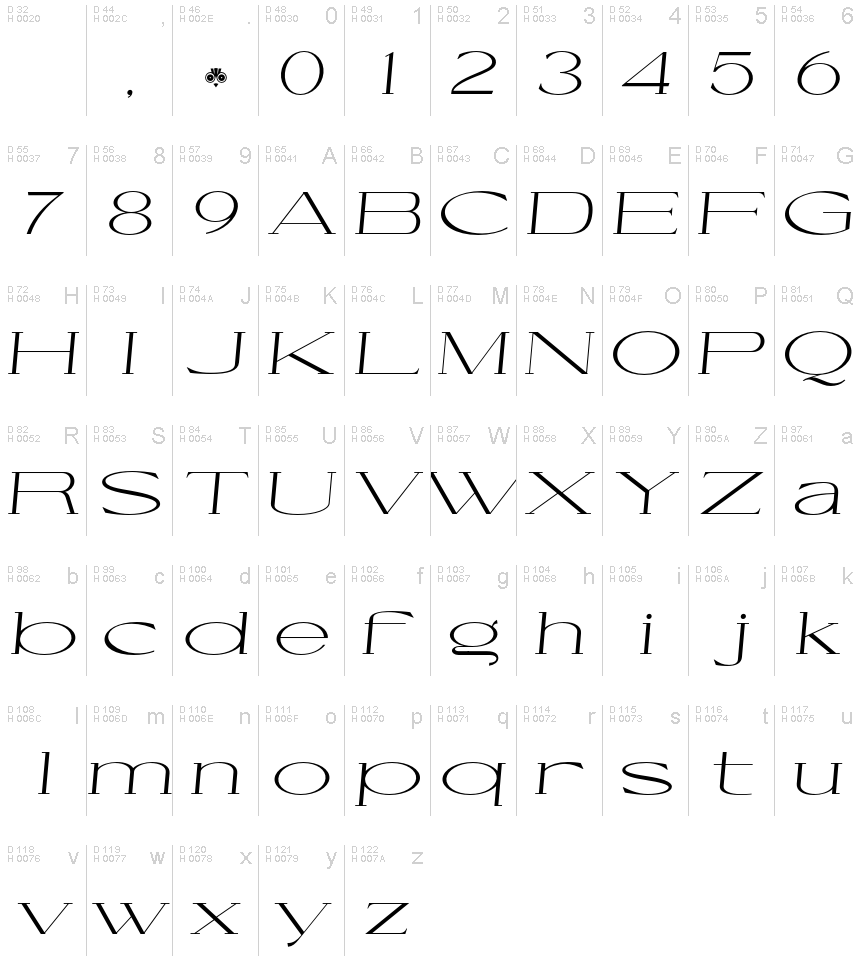
Cellofy ExtLt ExtExp Ita font, part of the Cellofy family by Owlking Project, is an elegant and sophisticated serif typeface. Its light weight and expanded width create an airy and graceful appearance, perfect for projects requiring a touch of refinement.
Cellofy ExtLt ExtExp Ita
Extra Light Extra Expanded Italic